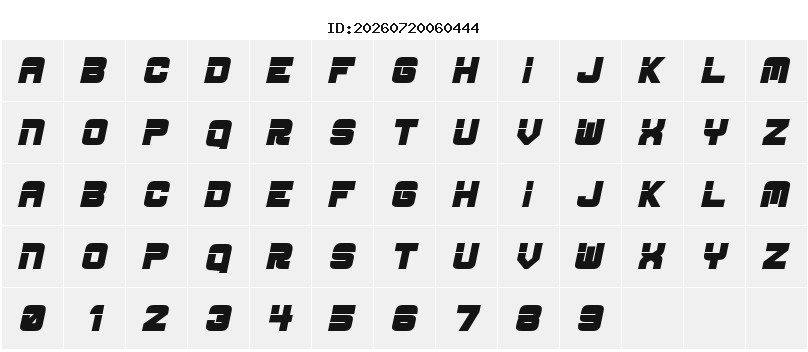
About ESP_Bold_Italic.ttf
ESP_Bold_Italic.ttf is a modern, elegant sans-serif font designed for ultimate readability and visual harmony. Perfect for branding, headlines, web design, and print materials.